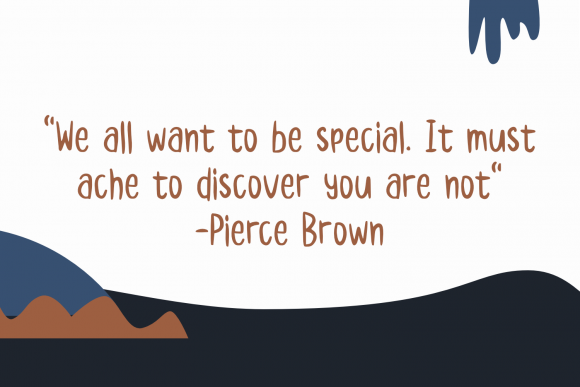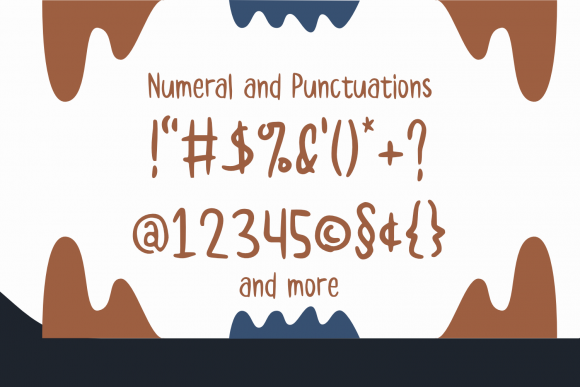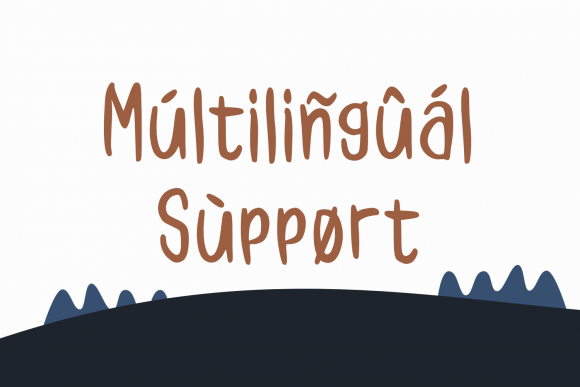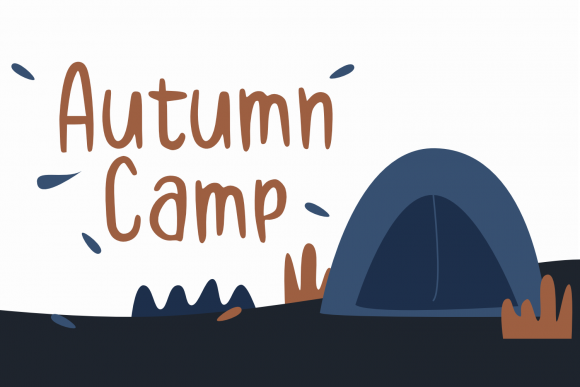
Introduction to Jackal Nest Font
Do you remember that moment when a spark of creativity hits you, and you can’t wait to bring your vision to life? For designers, this moment is a rush of excitement and anticipation. It’s the moment when the right font can make all the difference between a good design and a great one. And that’s where the Jackal Nest Font comes in – a high-quality, versatile handwritten font that’s perfect for any creative project.
With its natural and trendy feel, the Jackal Nest Font is a valuable resource for designers who want to add a personal touch to their work. Whether you’re working on a free download project or a commercial design, this font is sure to impress. Its transparent background and flexible design make it easy to use, and its endless variations ensure that you’ll never run out of creative possibilities.
Key Features of Jackal Nest Font
- High-quality design with a unique, modern aesthetic, perfect for creative projects.
- Includes multiple font sizes and resolutions, from 72 dpi to 300 dpi, catering to various design requirements.
- Unique characteristics include intricate details and subtle textures, adding depth and visual interest to designs.
- Suitable for a wide range of creative projects, from branding and advertising to digital art and typography.
Honest Review: Jackal Nest Font
I recently stumbled upon the Jackal Nest Font, and I must say it’s a great addition to any design resource. As a designer, I’m always on the lookout for high-quality fonts that can elevate my creative projects. This font definitely fits the bill.
- Unique and quirky design that adds a touch of personality to any project.
- Transparent background, allowing for easy customization and layering.
The Jackal Nest Font is perfect for designers working on creative projects that require a bit of whimsy and flair. From branding and marketing materials to digital art and illustrations, this font is sure to add a touch of magic to your work.
- May not be suitable for projects that require a more formal or traditional font style.
- Limited character set, which may be a concern for designers working on projects that require a wide range of characters.
Overall, I’m impressed with the Jackal Nest Font and would definitely recommend it to fellow designers. With its unique design and high-quality features, it’s a great addition to any design resource collection.
The Jackal Nest Font is a high-quality, unique design resource that can add a touch of creativity to your projects. With its transparent background, this font is perfect for designers looking for a versatile and easy-to-use design element.
To get the most out of the Jackal Nest Font, try experimenting with different font sizes, colors, and combinations. You can also use it in conjunction with other design elements to create a unique and eye-catching design.
The Jackal Nest Font is perfect for various creative projects such as:
- Branding
- Typography-based designs